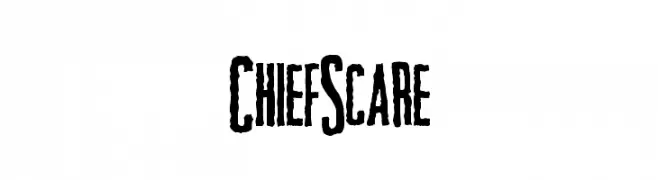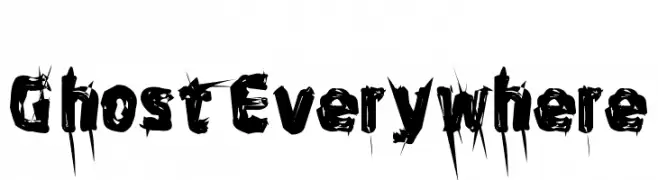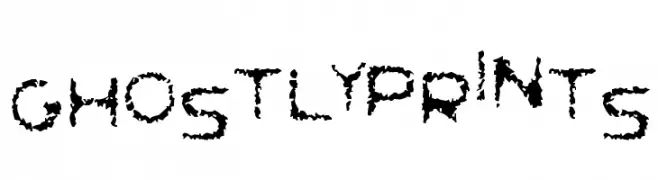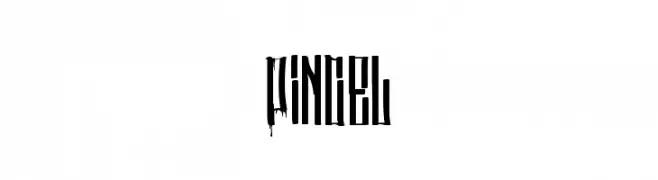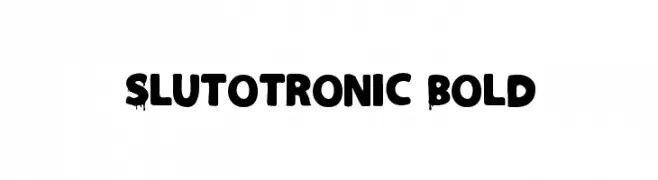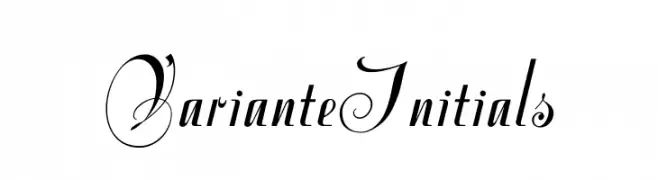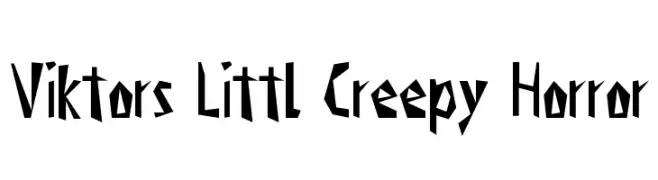
A jagged, eerie font perfect for horror-themed designs.
A bold, distressed font with an eerie, hand-drawn style.
A bold, 3D cartoonish font with a playful shadow effect.
A bold, decorative font with a dripping effect for a playful and eerie look.
A distressed, ghostly font with an eerie, decayed texture.
An elegant script font with flowing curves and sharp edges, perfect for refined designs.
A dramatic, gothic-style font with elongated, sharp edges and a dripping effect.